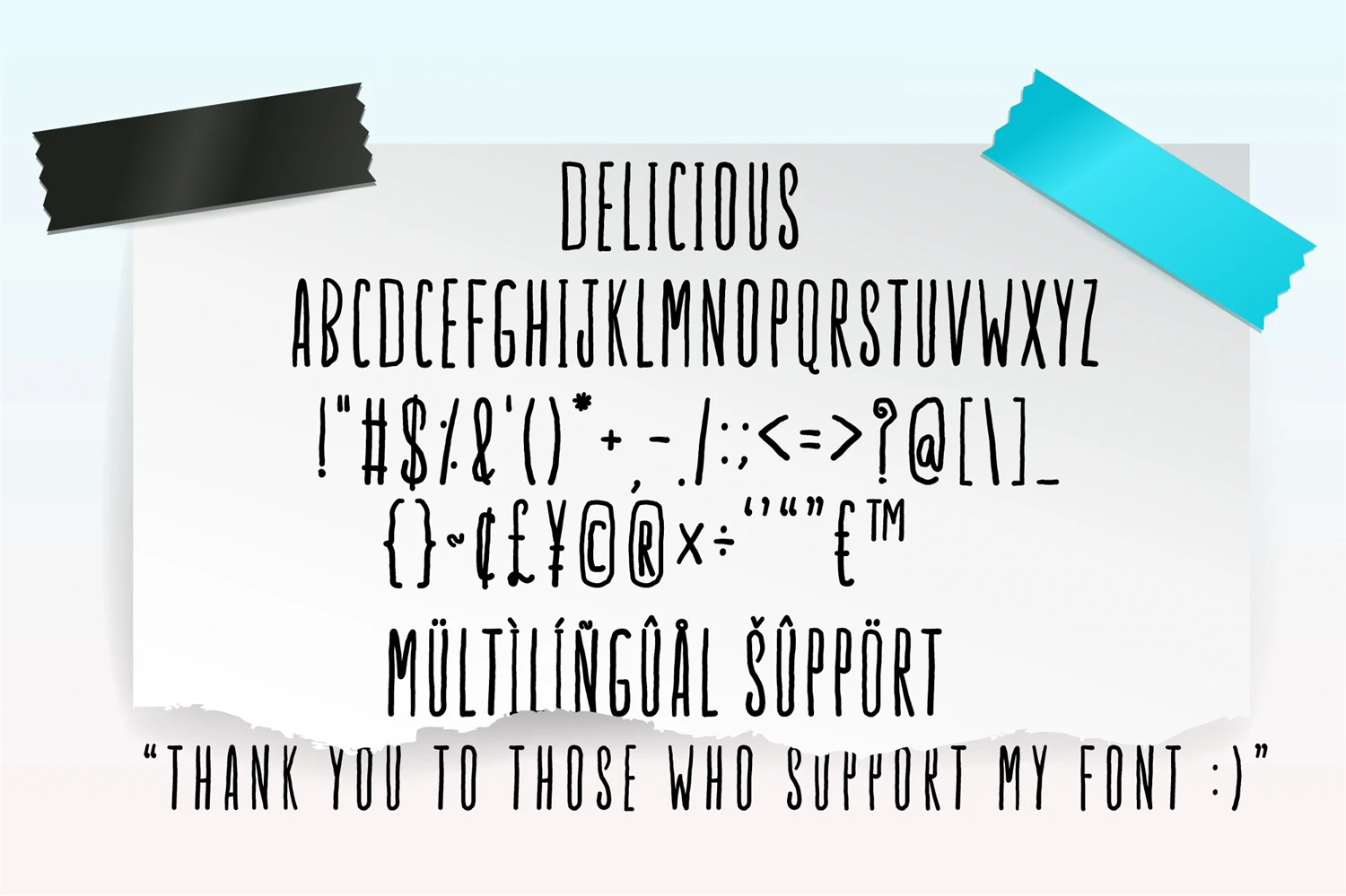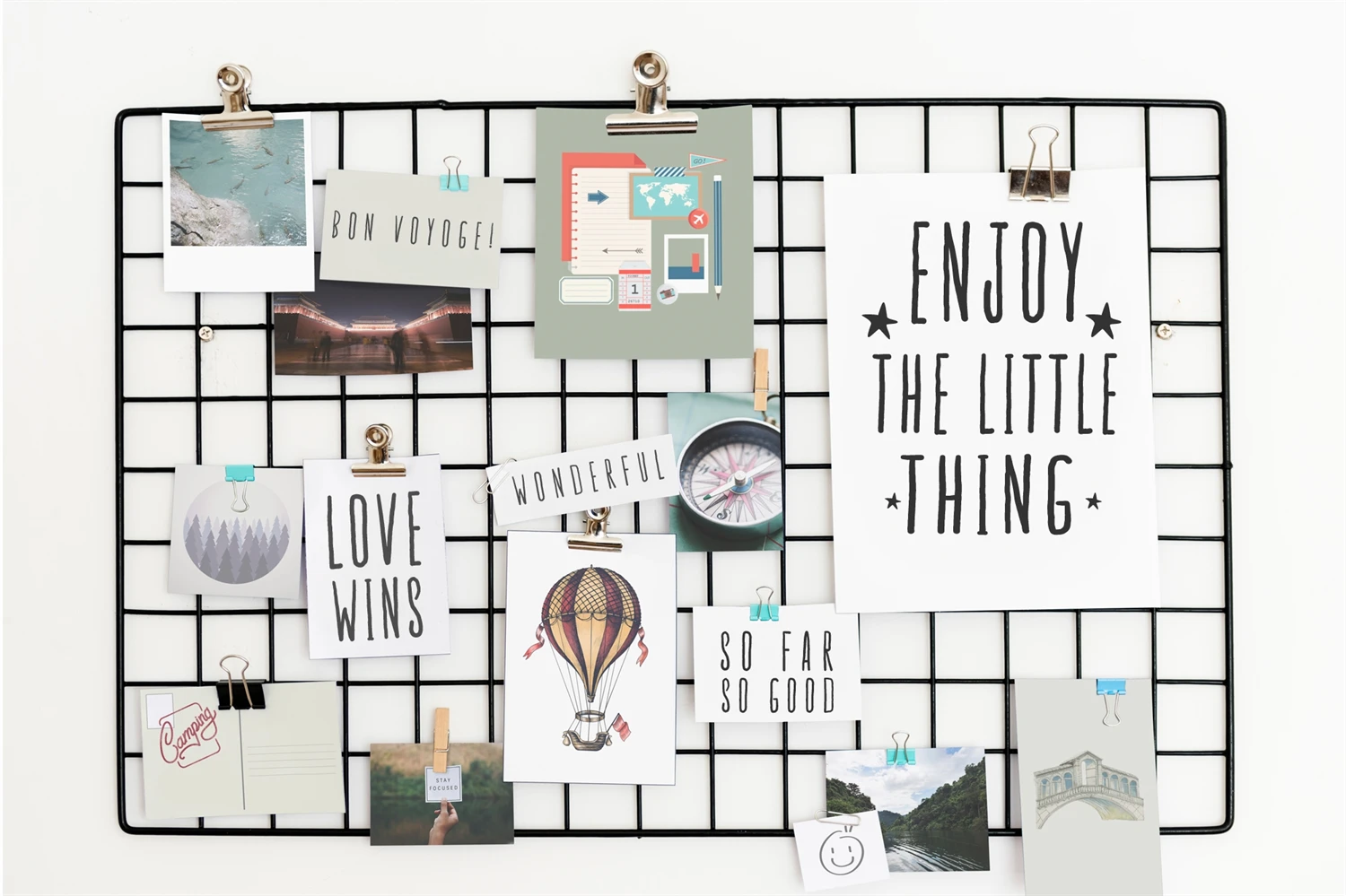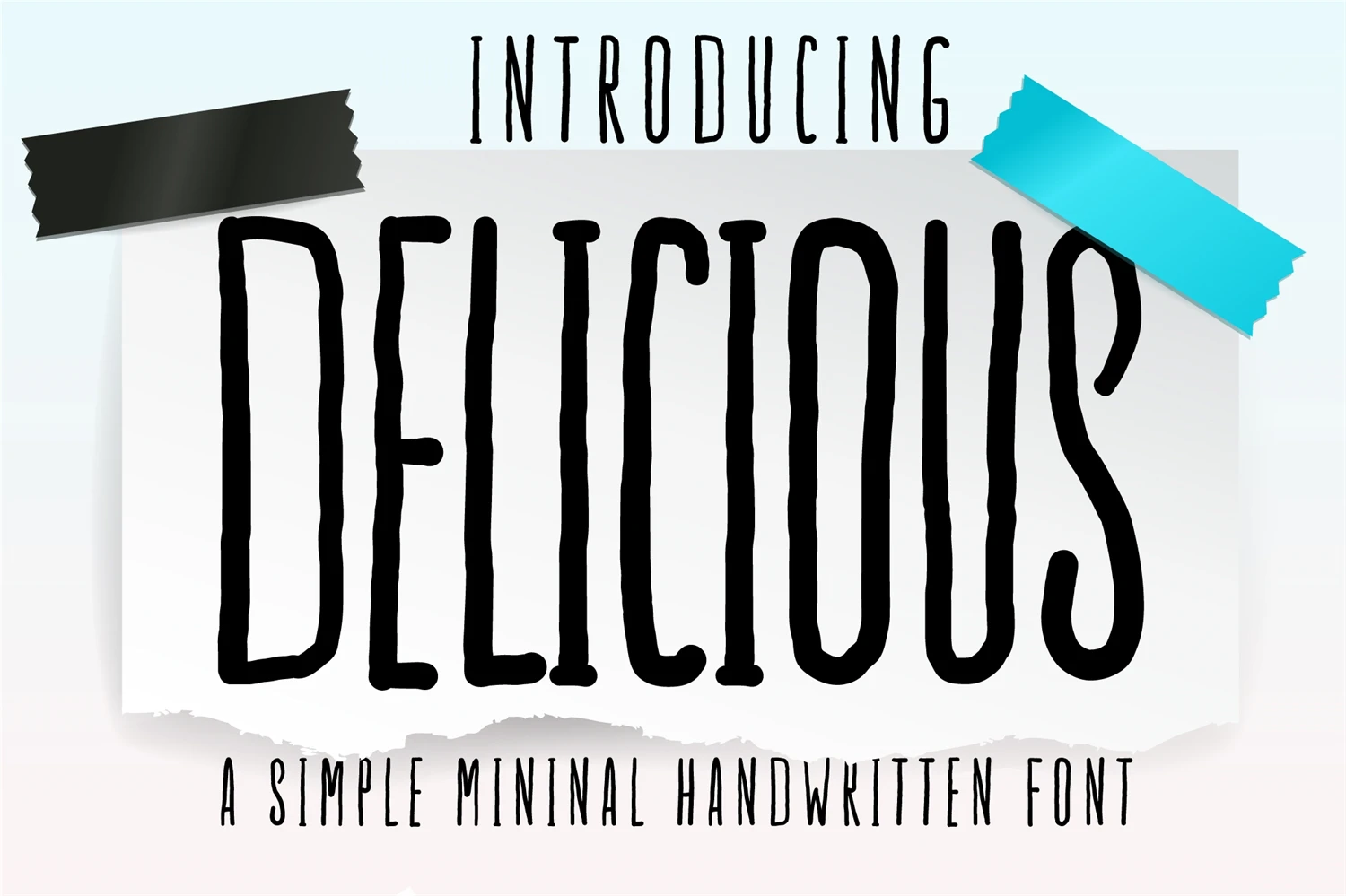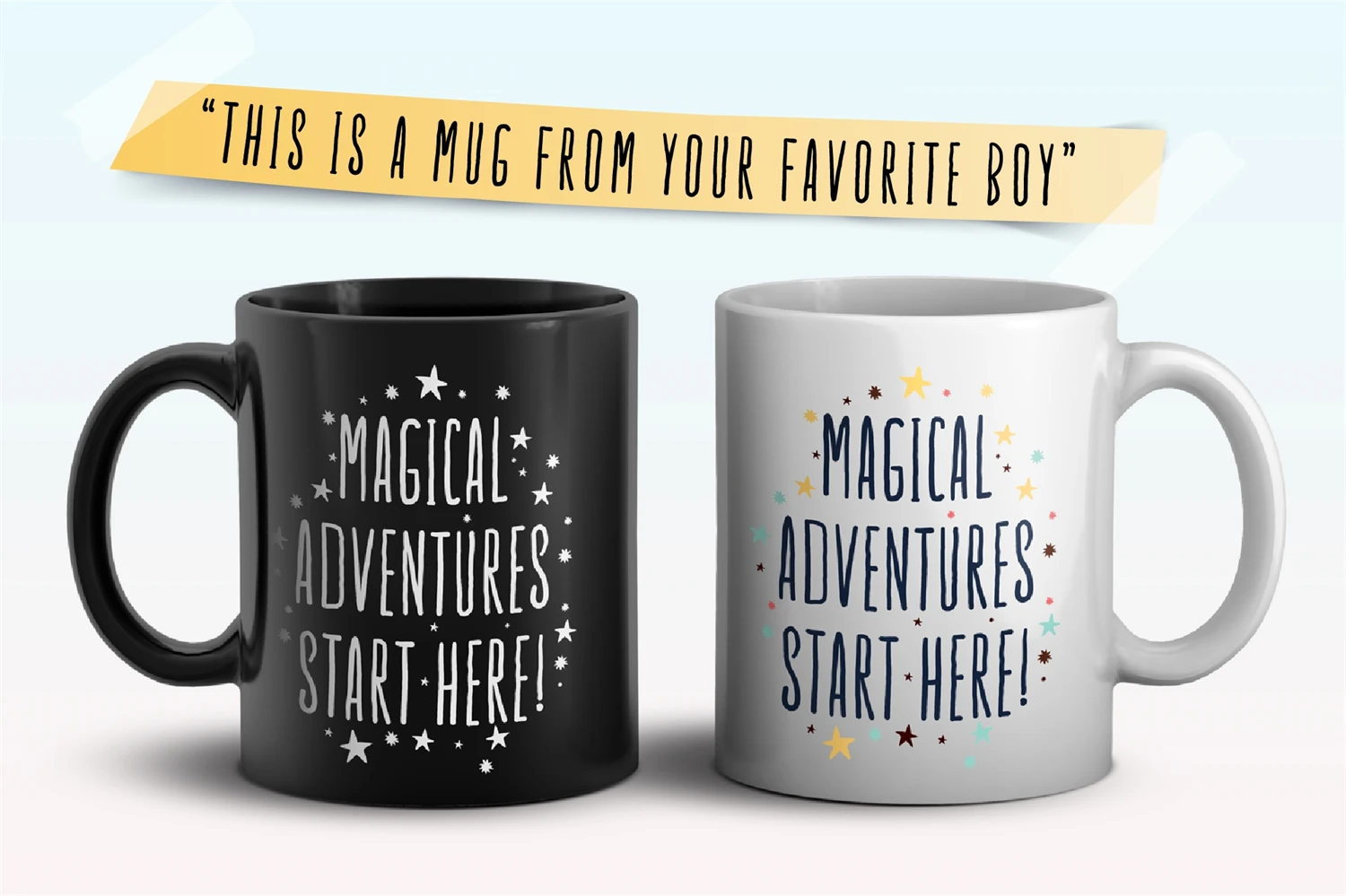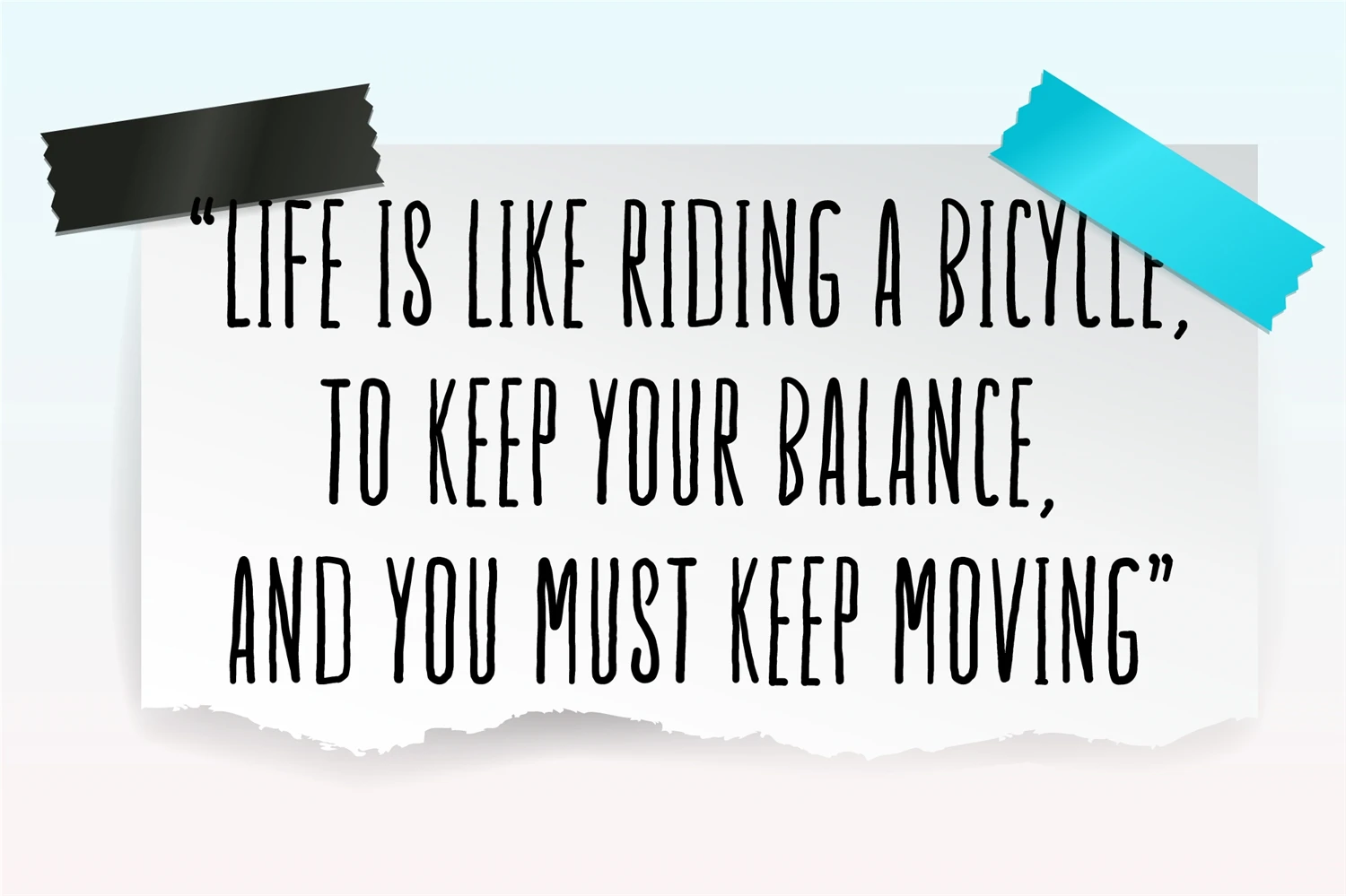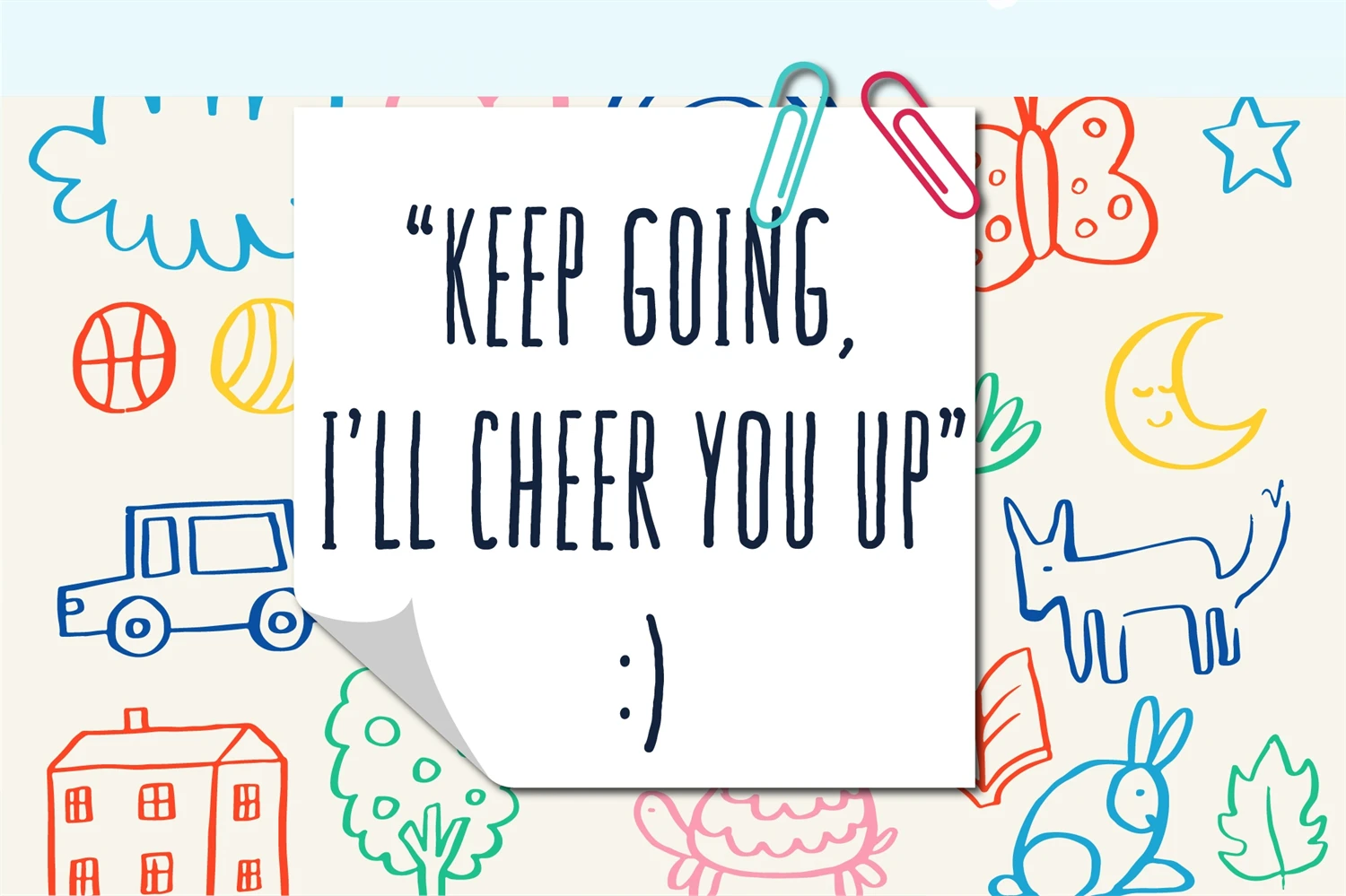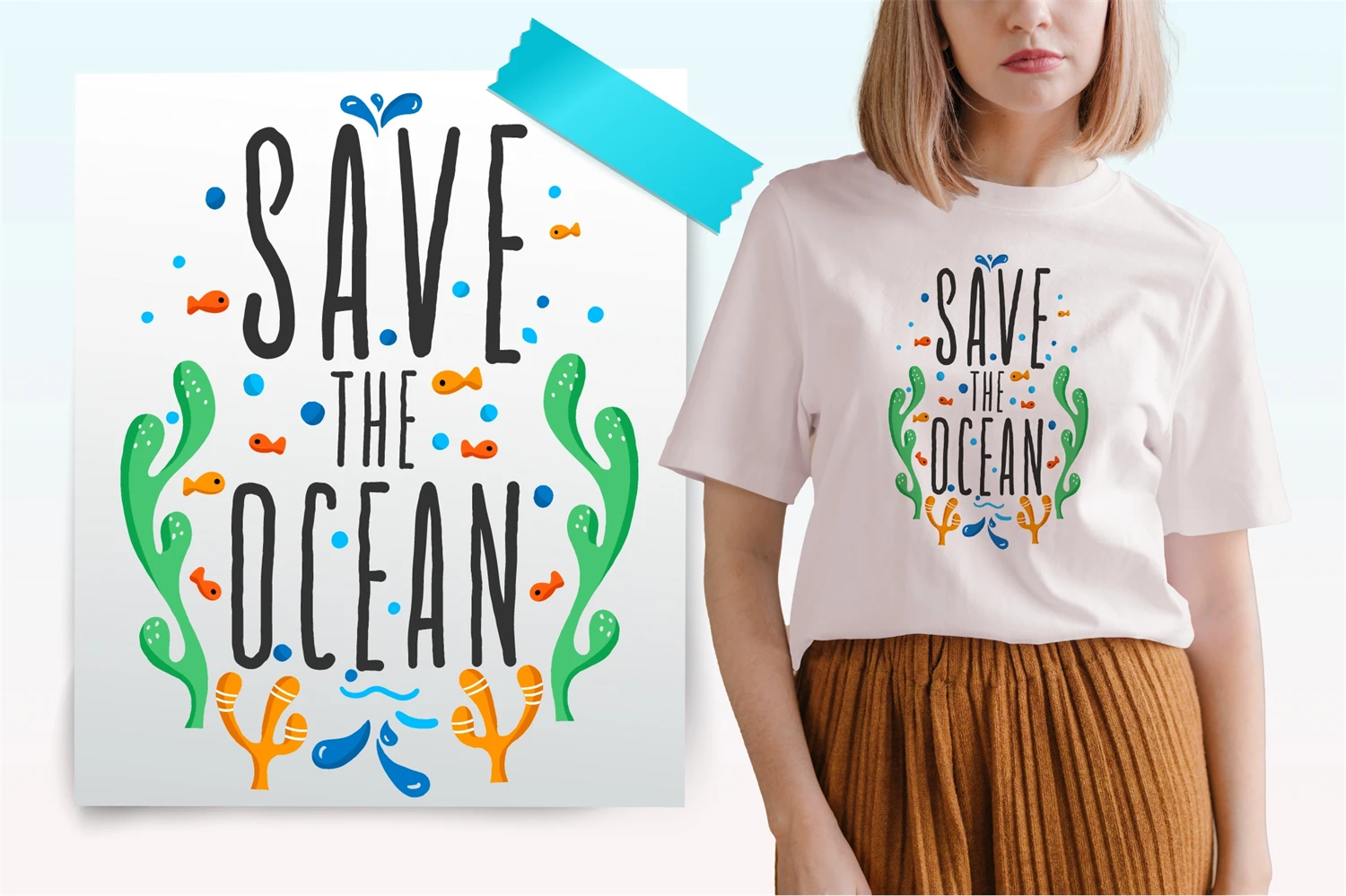
Delicious is a charming and versatile handwritten typeface that exudes simplicity and minimalism. With its clean lines and subtle elegance, this font adds a touch of warmth and personality to any design. Whether youre working on branding, invitations, logos, or social media graphics, Delicious Font will bring a delightful and contemporary feel to your projects. Its easy readability makes it perfect for both digital and print designs.